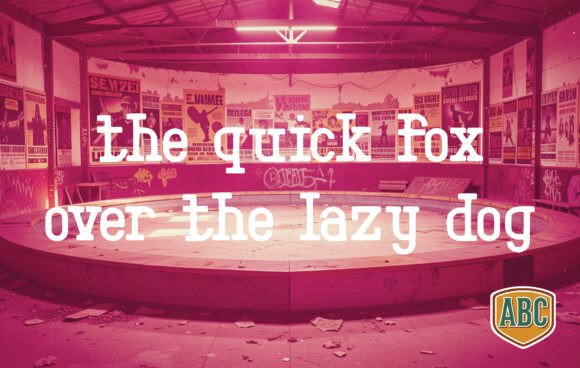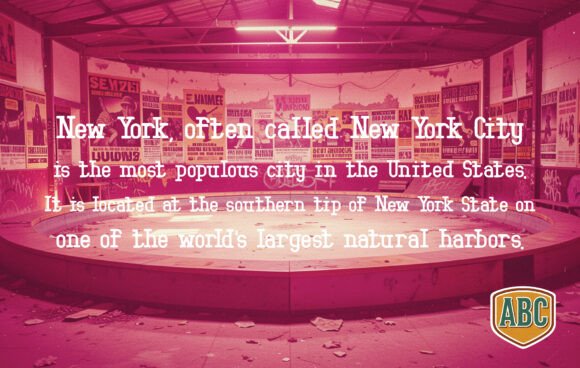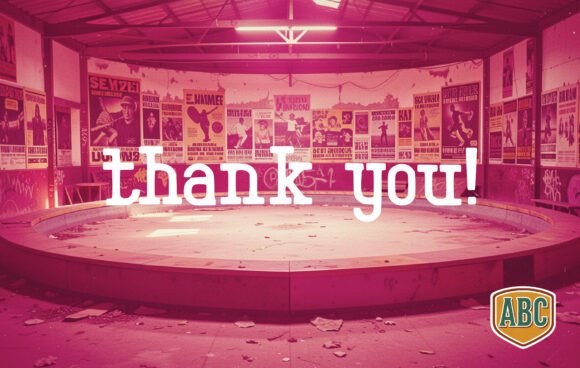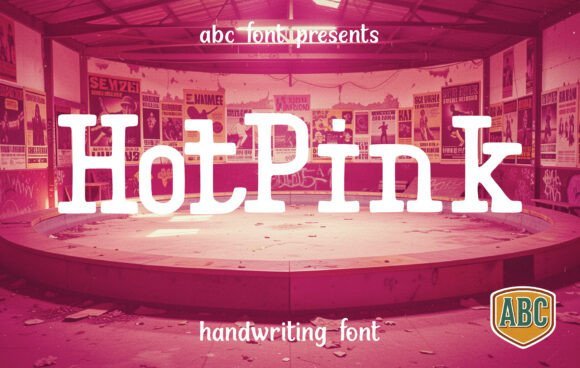
Introduction to Hotpink Font
HotPink is built for impact.
Its thick, sturdy strokes provide a powerful presence that commands attention, making it the ultimate choice for creators who need their message to be seen and felt Despite its β€œheavy” feel, the font retains a playful, organic rhythm that feels alive and custom-made.
Key Features of Hotpink Font
Why Choose Hotpink Font?
Hotpink Font offers exceptional quality and versatility, making it a valuable addition to your design toolkit. Whether you’re creating for personal projects or commercial use, Hotpink Font delivers professional results.